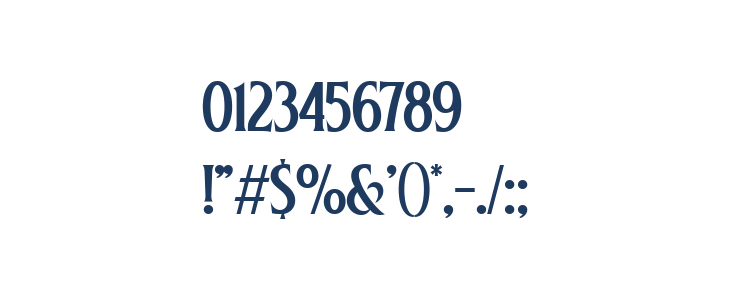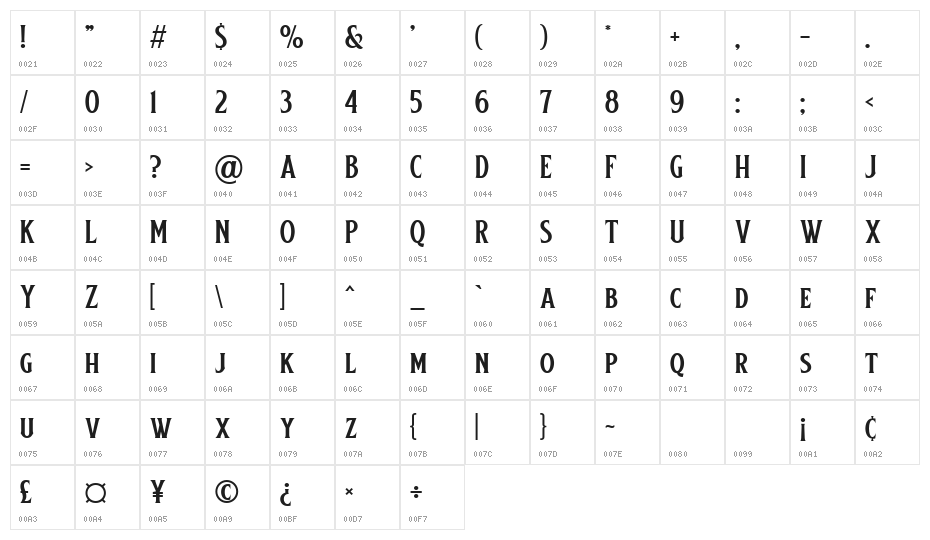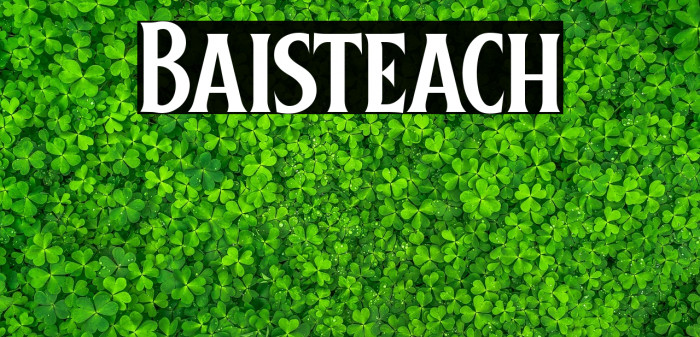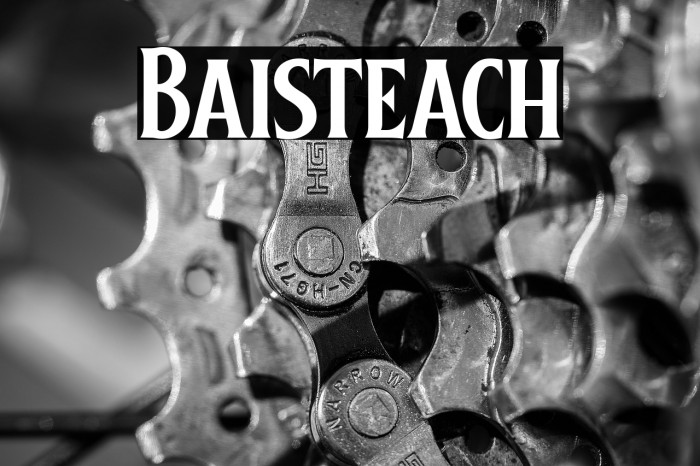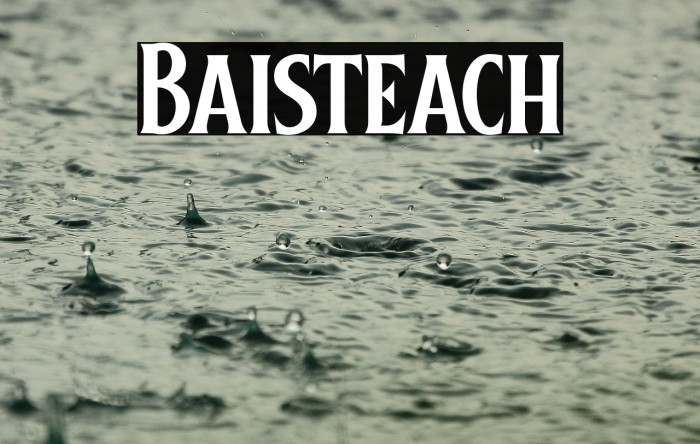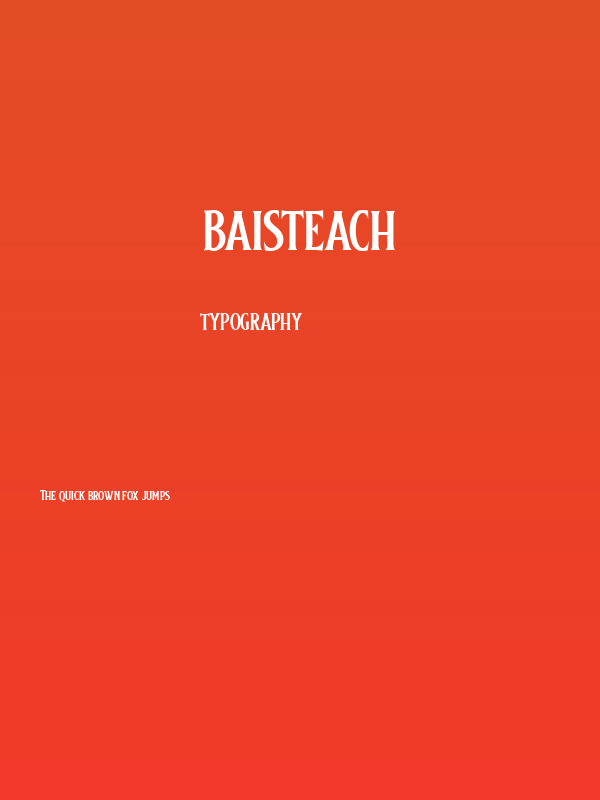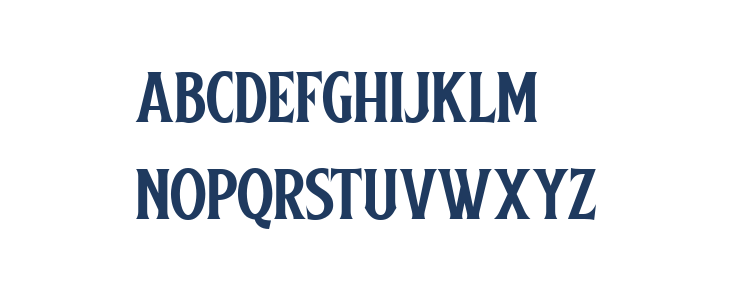
Baisteach Font
Baisteach Description
This font features a bold and dynamic style with high contrast between thick and thin strokes, giving it a dramatic and impactful appearance. The serifs are pronounced and slightly curved, adding a touch of elegance and sophistication. The overall design is reminiscent of classic serif fonts but with a modern twist, making it suitable for both traditional and contemporary applications. The uppercase letters are tall and commanding, while the lowercase letters maintain a consistent style that complements the uppercase. The numerals are clear and distinct, ensuring readability. Special characters are well-designed, maintaining the font's cohesive aesthetic.
| Proposed Projects | Ideal for book covers, editorial headlines, branding, and luxury product packaging. |